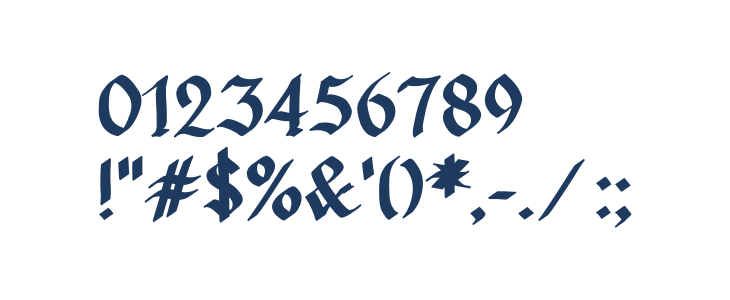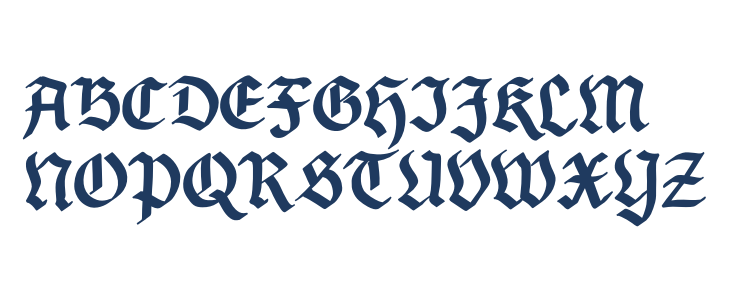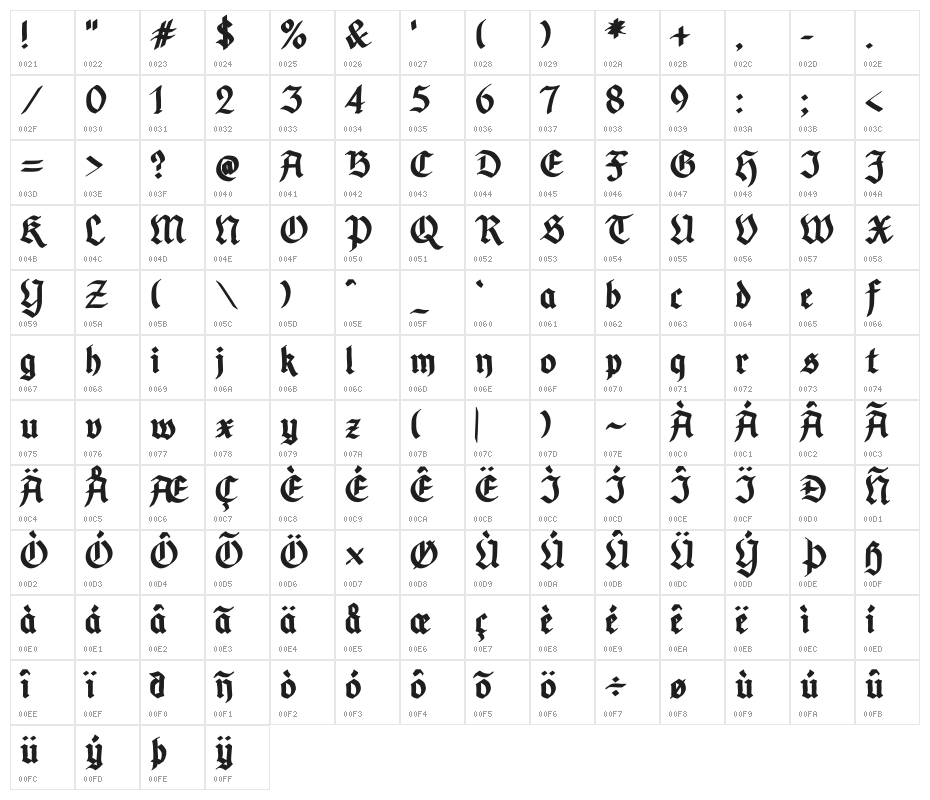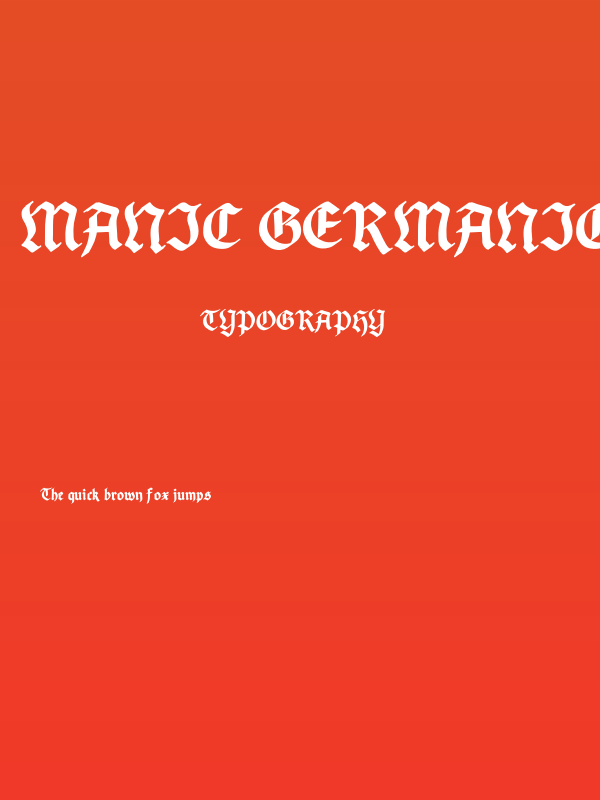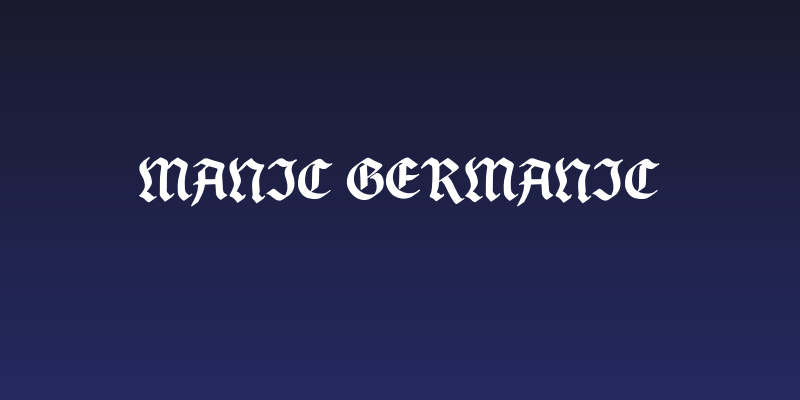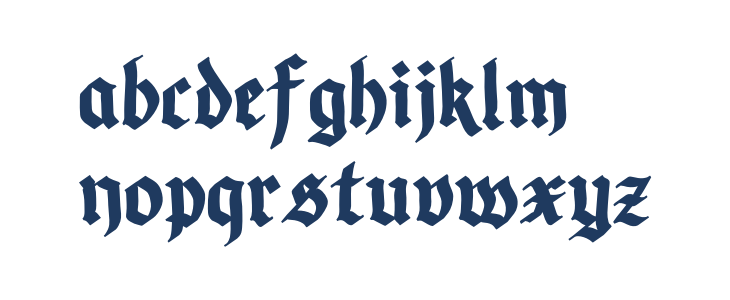
Manic Germanic Font
Manic Germanic Description
A bold, angular typeface with dramatic, sharp strokes and high contrast, reminiscent of traditional German blackletter styles. The characters feature pointed serifs, elaborate terminals, and a dense, textured appearance.
| Overall Style | Decorative, Vintage, Gothic |
| Use Case | Logos, Headlines, Posters, Themed event materials |
| Proposed Projects | Posters, gothic-themed branding, music album covers, event invitations, historical or medieval designs. |